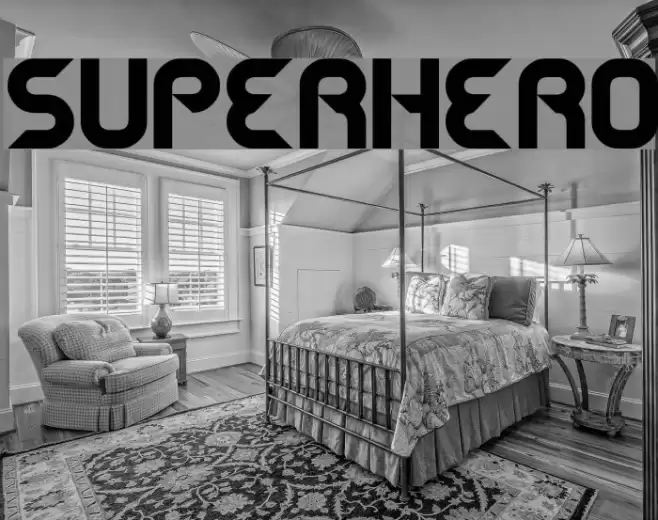
SUPERHERO Font
SUPERHERO Description
This font features a bold and dynamic design with a futuristic flair. The characters are angular and geometric, giving a sense of movement and energy. The uppercase letters are particularly striking, with sharp edges and unique cuts that create a sense of action and excitement. The lowercase letters maintain a similar style, ensuring consistency across text. Numbers and special characters are equally bold, making them stand out in any design. This font is perfect for projects that require a strong, impactful presence.
A bold, angular font with a futuristic and dynamic style from Uncategorized fonts.
- Proposed Projects: Ideal for superhero-themed designs, comic book titles, video game interfaces, and action movie posters.